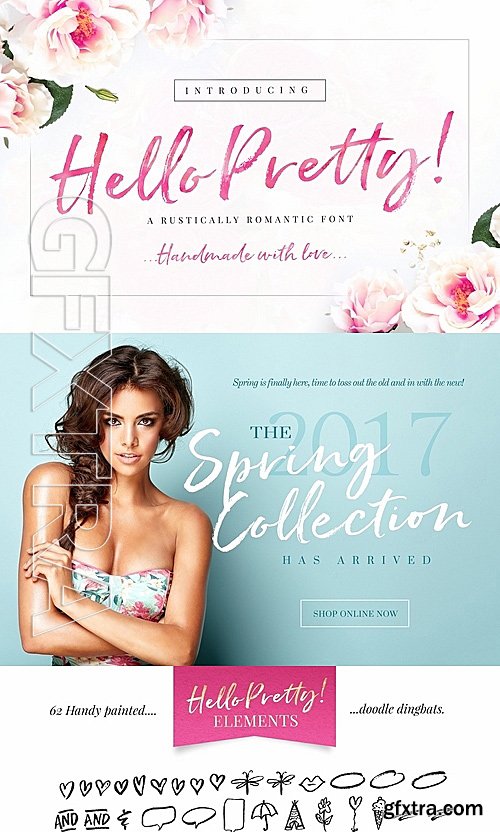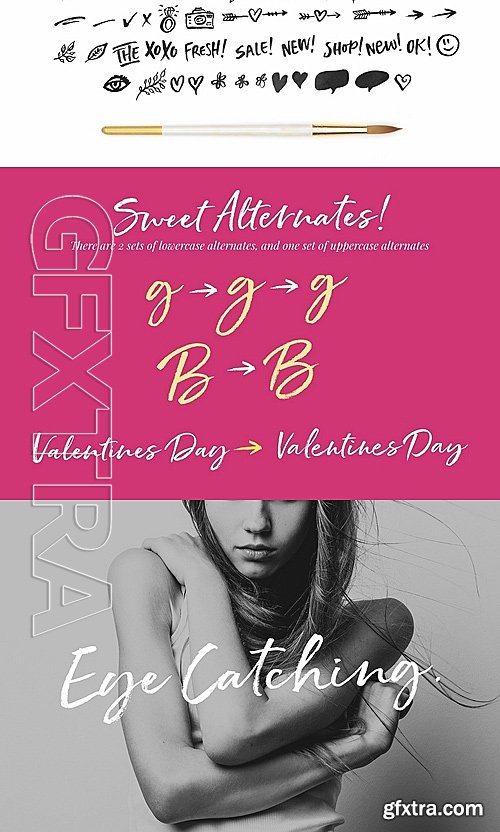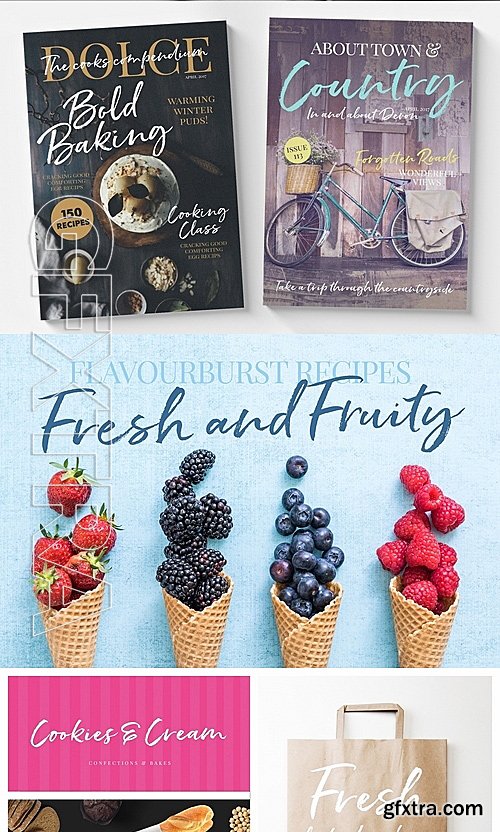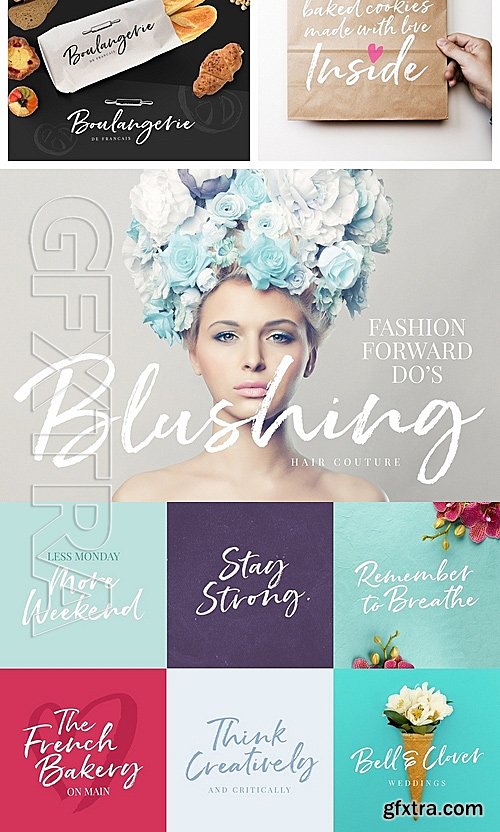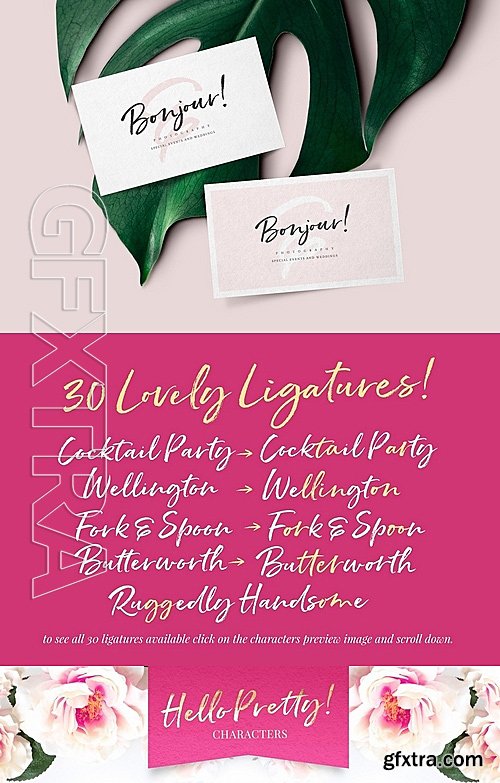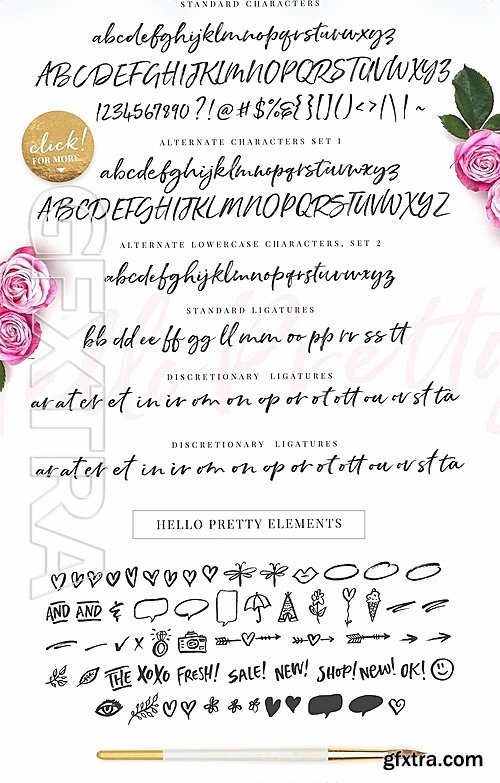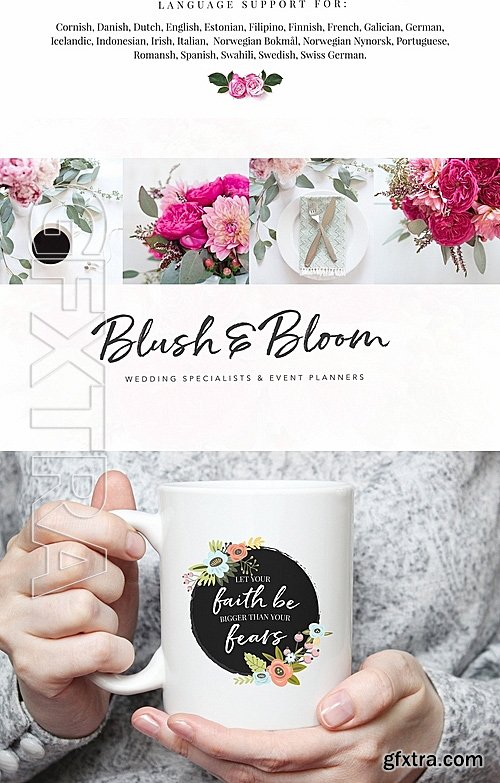
Say hello to Hello Pretty! A fresh and flirty brush font with oodles of style! AND 3 sweet little bonuses:)
Hello Pretty is a hand brushed typeface, with authentic tell-tale dry brush imperfections, and oodles of alternate letters and ligatures - Perfect for adding a fresh, personal flair to your designs.
❤ ALTERNATE LETTERS AND DOUBLE-LETTER LIGATURES ❤ Hello Pretty has a large variety of alternate characters ( 2 Sets of lowercase, and 1 set of uppercase) ,allowing you to make each word look completely unique to the next! Ligatures are also included - to bring true authenticity to your design. It has multilingual support with accented characters for international users. ❤ BONUS EXTRAS ❤ 12 VECTOR LOGO TEMPLATES - Hello Pretty comes with a bonus 12 Premade Logo templates if you need a little design inspiration for your branding :) Click the preview above to see all the logos you receive - All vector based, including the watercolours , and editable in Photoshop or Illustrator. Hello Pretty also comes with a bonus DINGBAT font with 62 handy doodles elements for your designs :) A download link to the GOLD FOIL used in the characters preview is included as a JPEG, Photoshop Style and Illustrator Swatch :) ❤ NO SPECIAL SOFTWARE REQUIRED ❤ No special software is required to use Hello Pretty , as separate font files for all the alternates and ligatures are included for you :) For folks who have opentype capable software : The alternates are accessible by turning on ''Stylistic Alternates'' and ''Ligatures'' buttons on in Photoshop''s Character panel, or via any software with a glyphs panel, e.g. Adobe Illustrator, Photoshop CC, Inkscape. ❤ PERFECT FOR ❤ Hello Pretty is perfect for using in your branding, weddings, logos, business cards, merchandise, greeting cards, posters, magazines, social media and websites. ❤ FILES INCLUDED: ❤ HelloPretty.otf ( with all opentype features - alternates and ligatures ) HelloPretty_Alternates1.otf HelloPretty_Alternates2.otf HelloPretty_ligatures.otf Text file with download link to TTF(Truetype Fonts) file versions of the above files. P A S S W O R D : HELLO465R67GFXTRANET